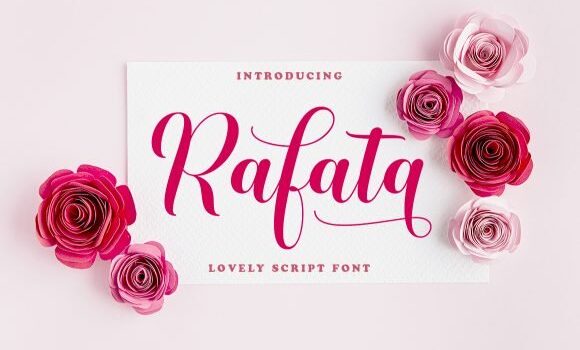
rafata
Rafata Font - Featured Image
Rafata Font – Free Download Introduction to Rafata Font Rafata is a romantic and sweet calligraphy typeface with characters that dance along the baseline. 📸 Preview Gallery 6 images 📌 Product Name Rafata Font 👤 Author Ws Studio 📂 Category